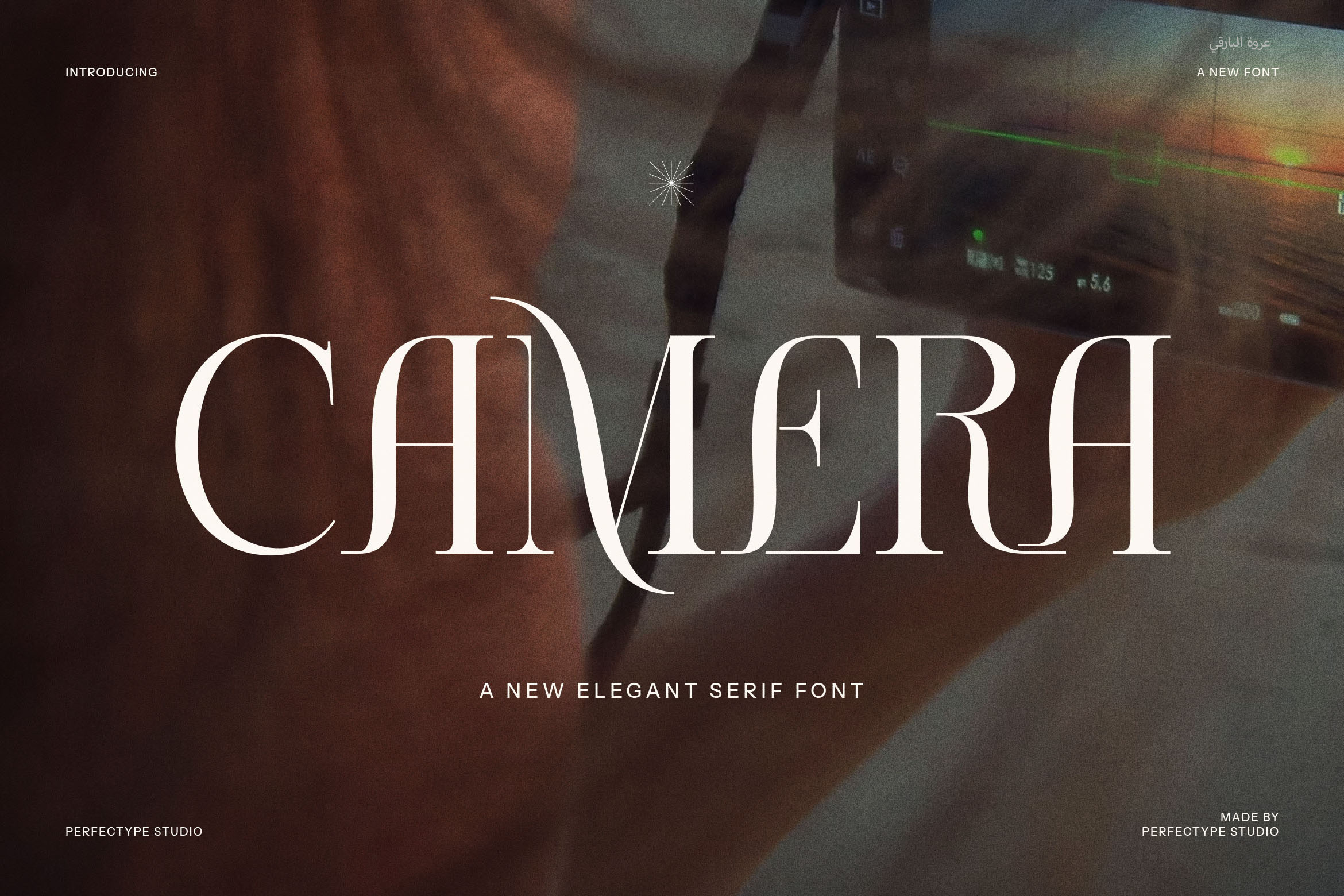
Camera Modern Serif Font
Camera Modern Serif Font is the epitome of refined sophistication, merging classic serif elements with a modern twist. This versatile typeface brings an air of elegance to any design, with its carefully crafted ligatures and alternate characters that add a unique touch of personality. Its balanced and harmonious letterforms create a timeless yet fresh aesthetic that elevates both simple and complex designs.
Perfect for a wide array of creative projects, Camera Modern Serif shines in logos, branding, and high-end product designs. Its distinctive style also makes it a standout choice for websites, magazine layouts, and advertising materials. Whether you're designing for a boutique, a luxury restaurant, or a cutting-edge fashion brand, this font delivers a polished, professional look that instantly commands attention.
Camera Modern Serif’s clean lines and subtle curves lend themselves beautifully to both large-scale titles and intricate body text, making it highly adaptable across various design mediums. Its timeless charm ensures it remains relevant in both contemporary and classic contexts, while the unique ligatures and alternates provide just the right amount of flair to make your designs truly one-of-a-kind.
From high-end brands to creative agencies, Camera Modern Serif offers a premium, versatile solution for designers seeking elegance and versatility. Whether you're creating an impactful logo or an elegant website, this font is your go-to tool for an unforgettable, stylish impression.